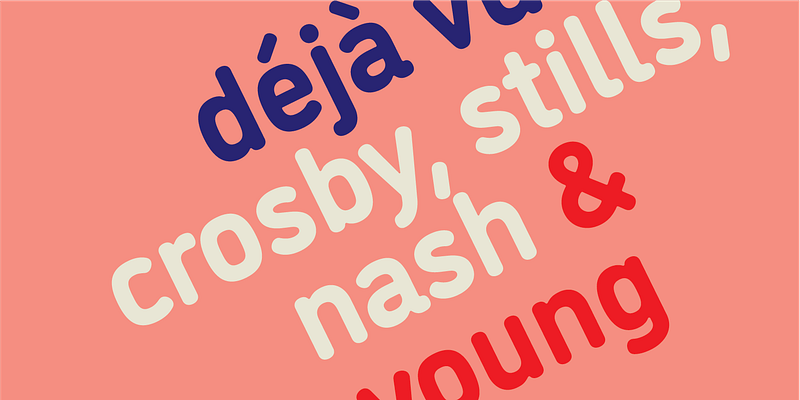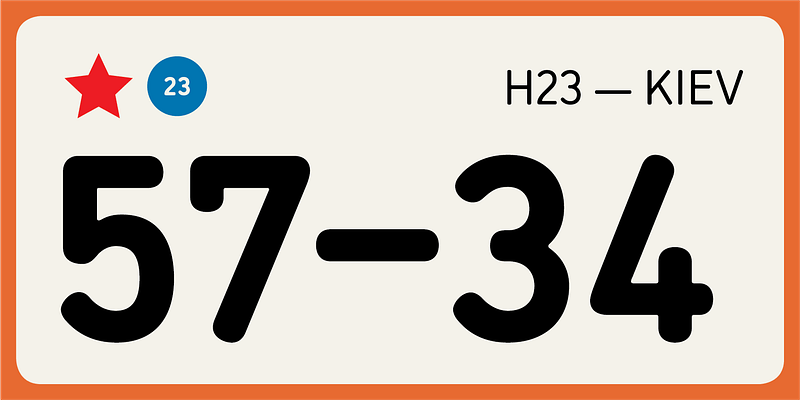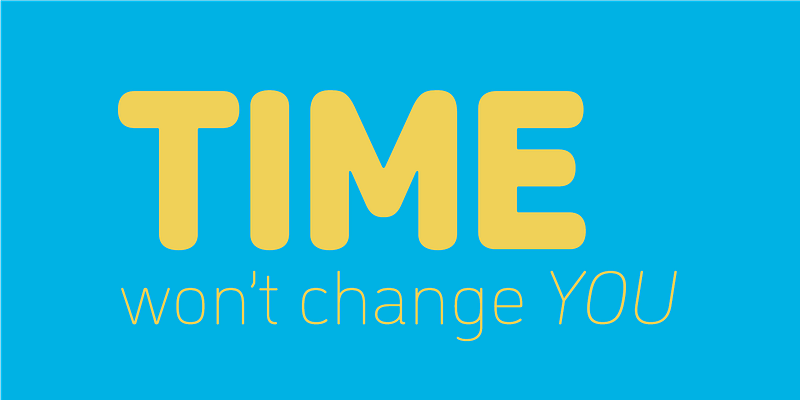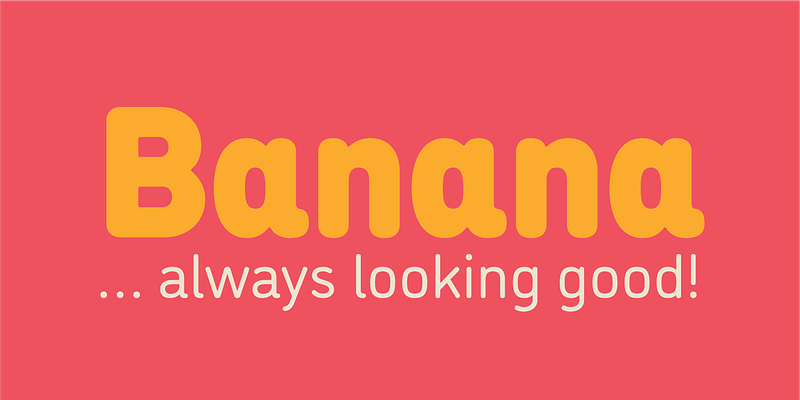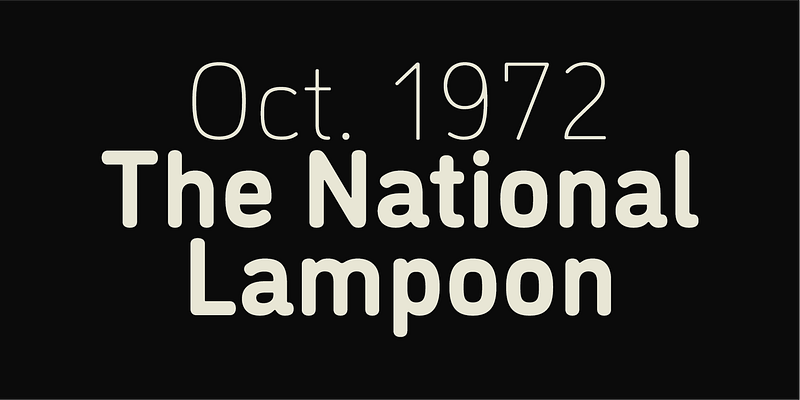
From a slightly unorthodox perspective, José Manuel Urós’ DINosaur can be considered a revival. The first iteration of DINosaur—which corresponds to the family’s bold weight—was based on a style found in a technical calligraphy manual for industrial lettering. The references used for the system reflect an era where industrial labeling was typically handwritten—either drawn freehand or by ruling with stenciled alphabets. DINosaur’s extreme roundness is not strictly ornamental, but rather an artifact of tracing to generate mechanical forms; Type-Ø-Tones 2016